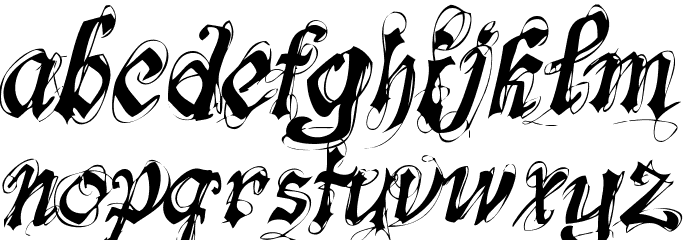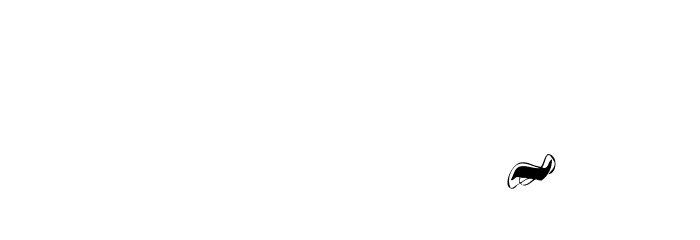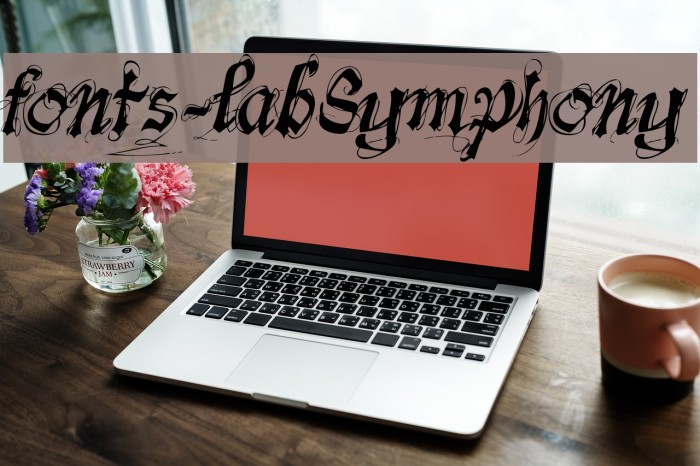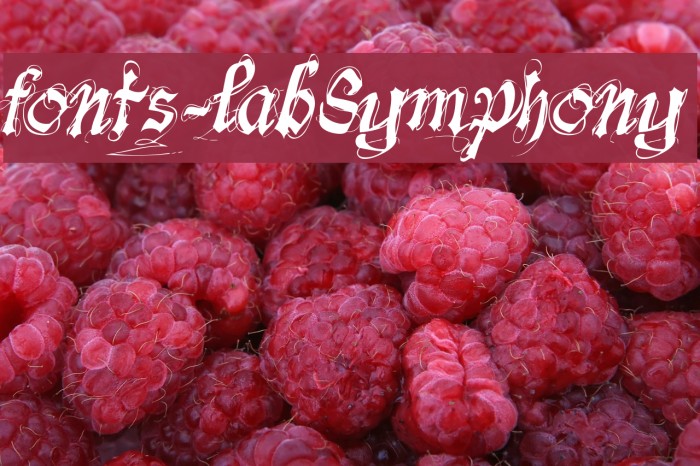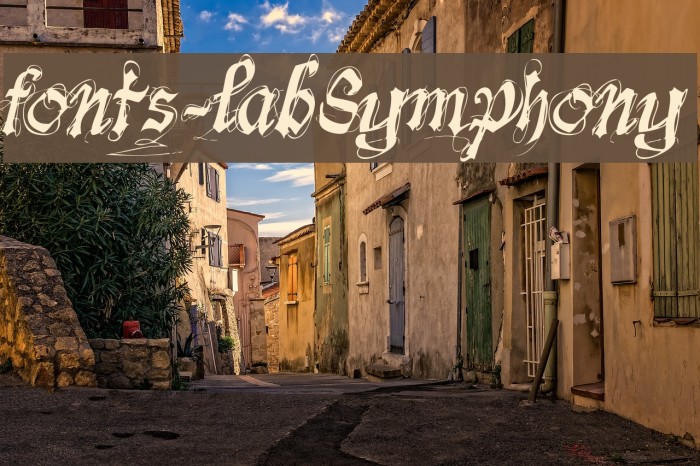
fonts-lab Symphony Font
This font exhibits a highly decorative and intricate style, characterized by elaborate swirls and flourishes that extend from each character. The letters are bold and dramatic, with a calligraphic influence that suggests a sense of elegance and sophistication. The strokes are thick and vary in width, creating a dynamic contrast that enhances the ornate design. The overall appearance is reminiscent of vintage or classical script, making it suitable for projects that require a touch of grandeur and formality.
An ornate, decorative font with bold, calligraphic strokes and elaborate flourishes.
- Proposed Projects: Ideal for wedding invitations, luxury branding, certificates, and decorative headings.
- Overall Style: Vintage
- Use Case: Logos, Headlines, Invitations